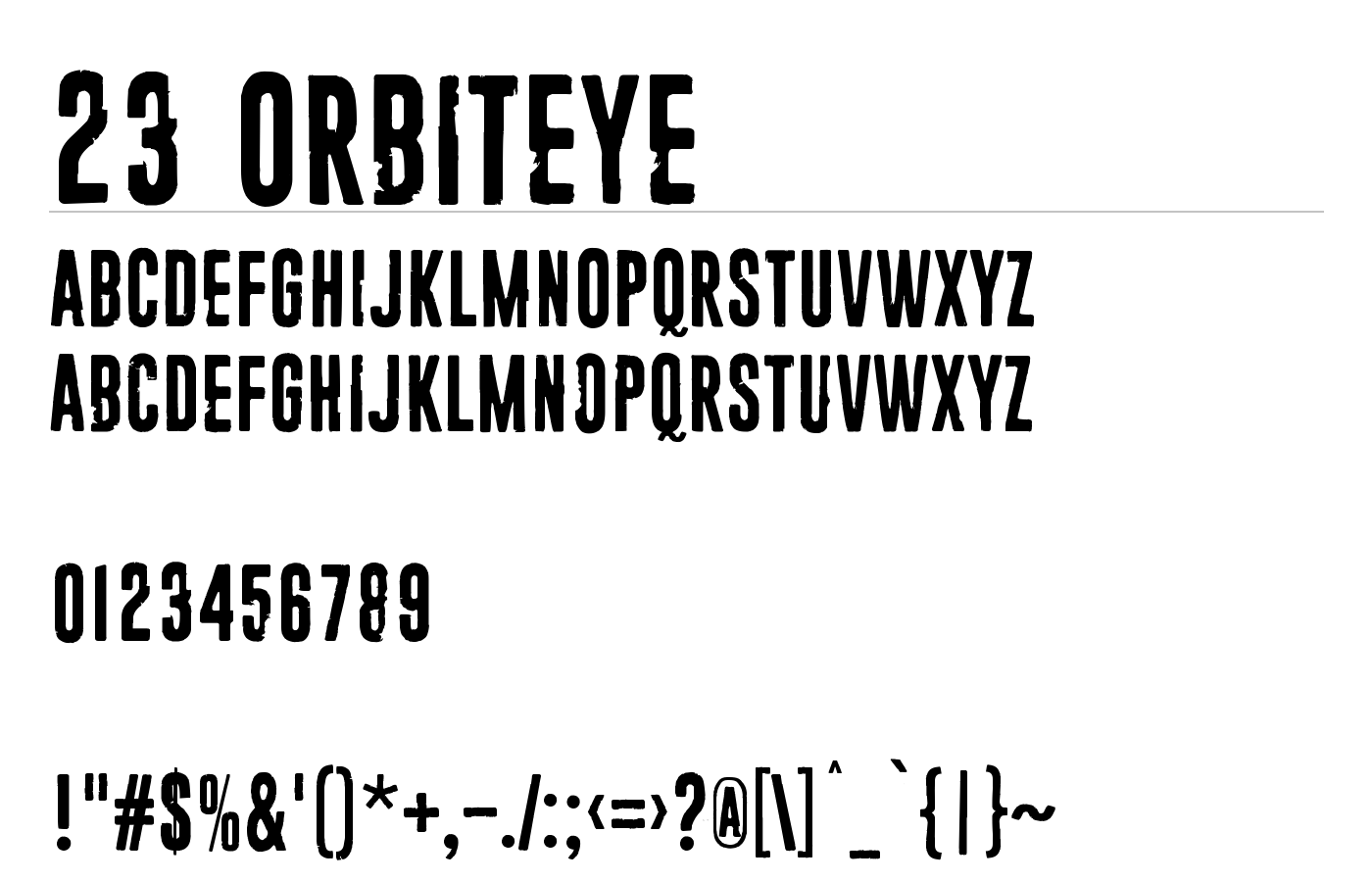
23 Orbiteye is a bold, condensed sans serif font with a distressed, textured style that gives it a rugged and vintage feel. Its tall, narrow letterforms and uneven edges make it ideal for creating eye-catching headlines or logos with a gritty, industrial vibe. This font works best for branding, posters, or editorial designs that want to convey strength, character, and a handcrafted touch.
23 Orbiteye Font
About 23 Orbiteye Font
| Font family | 23 Orbiteye Font |